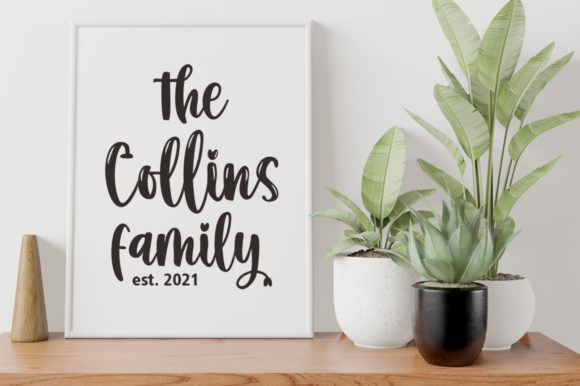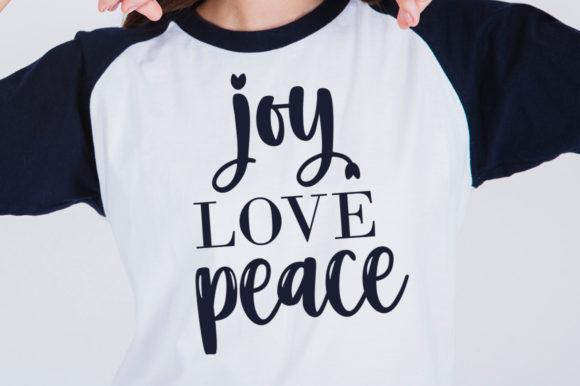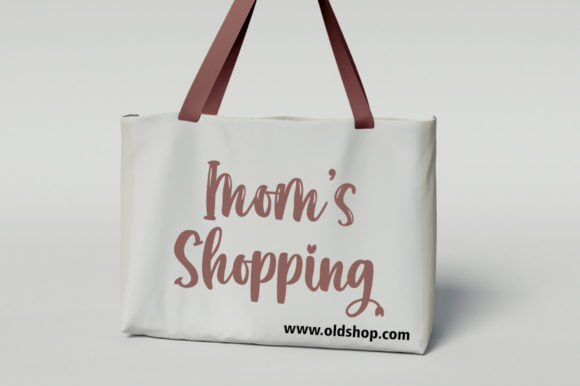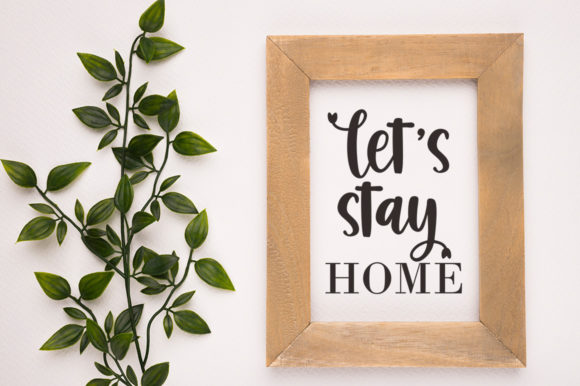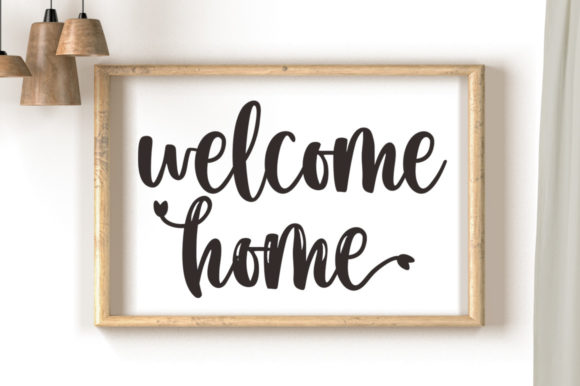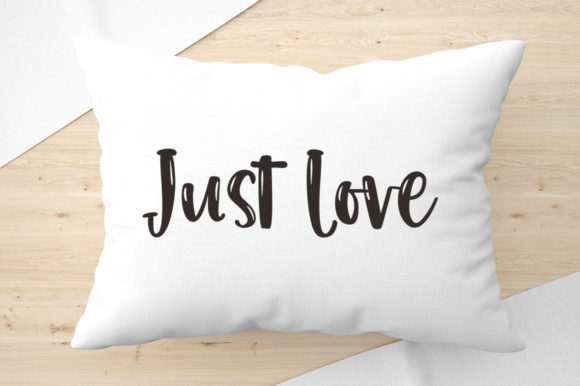
The Designer’s Delight: Berlin Kitchen Font
Ah, the elusive perfect font. You know, that one that makes your design project go from meh to mesmerizing? I’ve been there, done that, and got the t-shirt (which, by the way, was probably designed with a font that wasn’t quite right). But today, I’m excited to share with you a gem that might just become your new favorite: Berlin Kitchen.
A Moment of Design Frustration
I recall working on a branding project for a trendy new cafe. The client wanted something modern, yet elegant; playful, yet sophisticated. I scoured font libraries, but nothing seemed quite right. That was until I stumbled upon Berlin Kitchen. Its unique, handwritten charm instantly resonated with the cafe’s vibe. I knew I had found the one.
Berlin Kitchen: A Timeless Handwritten Font
Berlin Kitchen is a lovely and timeless handwritten font, perfect for creating eye-catching logos, branding, and quotes. Every letter has a unique and beautiful touch, which will make your design come alive! It’s ideal for designers, crafters, and creative hobbyists looking to add a personal touch to their work.
So, what makes Berlin Kitchen so special? Here are a few things I love:
• ✨ Unique and beautiful letterforms that add a touch of elegance to any design
• 💫 Supports OpenType features, glyphs, and stylistic alternates for added versatility
• 🎨 A wide range of applications, from logos and branding to quotes and social media graphics
And, like any font, it’s not without its quirks:
• 🤔 Some users might find the font a tad too ornate for very casual or minimalist designs
• ⚠️ Limited availability of certain special characters (but, let’s be real, who uses those fancy characters that often?)
The Story Behind Berlin Kitchen
Berlin Kitchen was designed with love and care by a talented type designer who wanted to create a font that would bring a touch of warmth and personality to designs. Inspired by the vibrant streets of Berlin, this font combines elegance with a playful, handmade feel.
Q: Can I use Berlin Kitchen for my social media graphics?
A: Absolutely! Berlin Kitchen is ideal for social media graphics, and its legibility ensures your message gets across clearly.
Q: Does Berlin Kitchen support OpenType features?
A: Yes, Berlin Kitchen supports OpenType features, glyphs, and stylistic alternates, giving you plenty of creative options.
Q: Can I use Berlin Kitchen for print designs?
A: Of course! Berlin Kitchen is suitable for both digital and print designs, from business cards to brochures and posters.